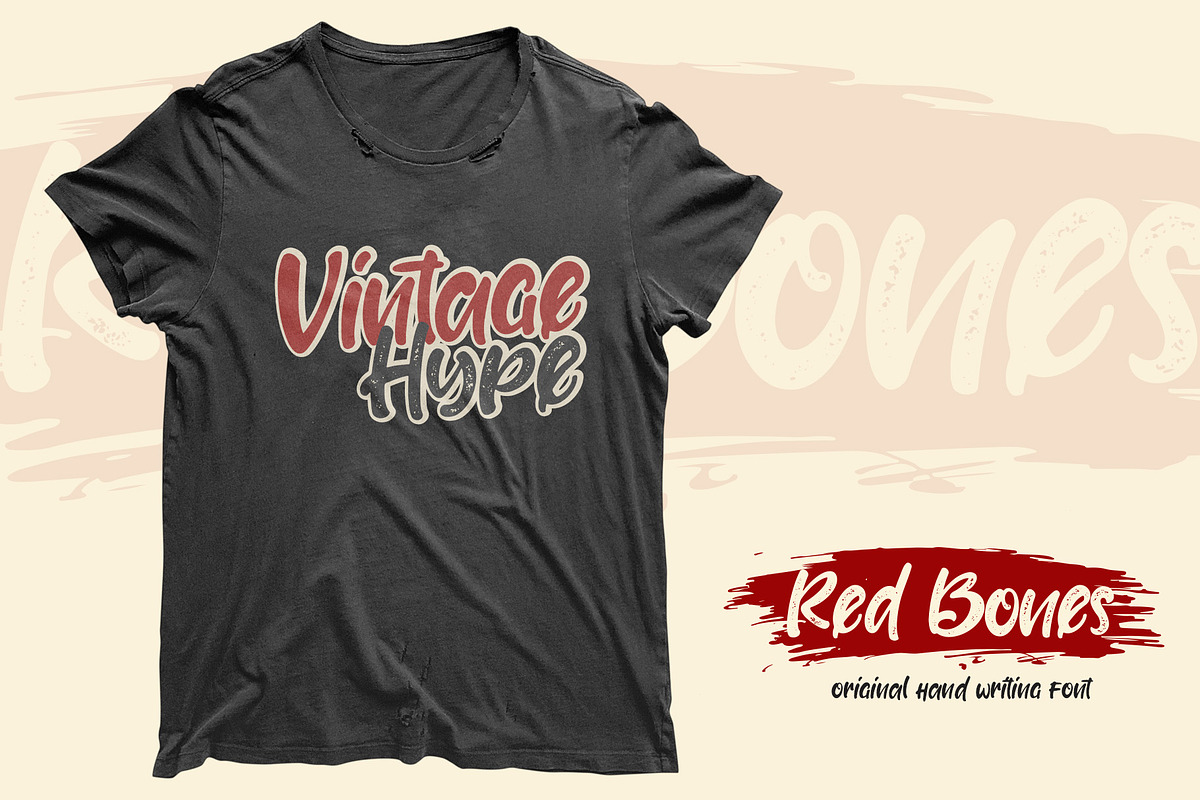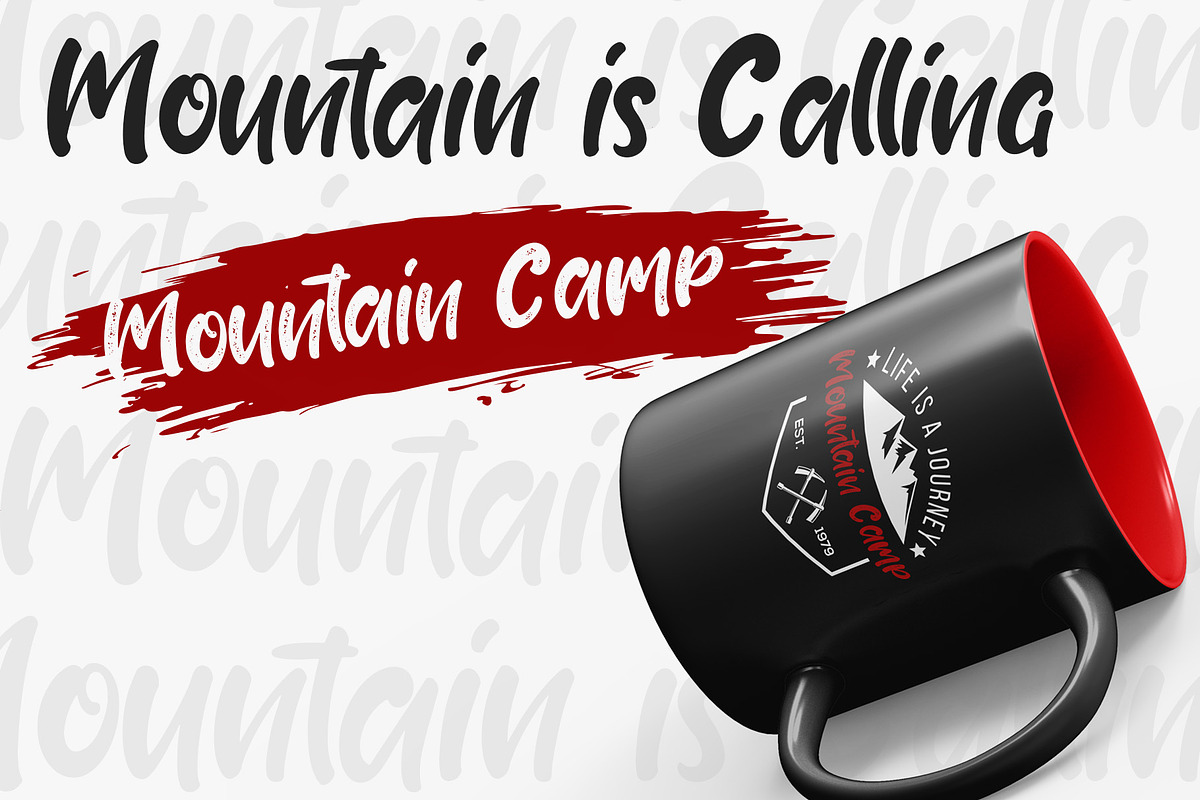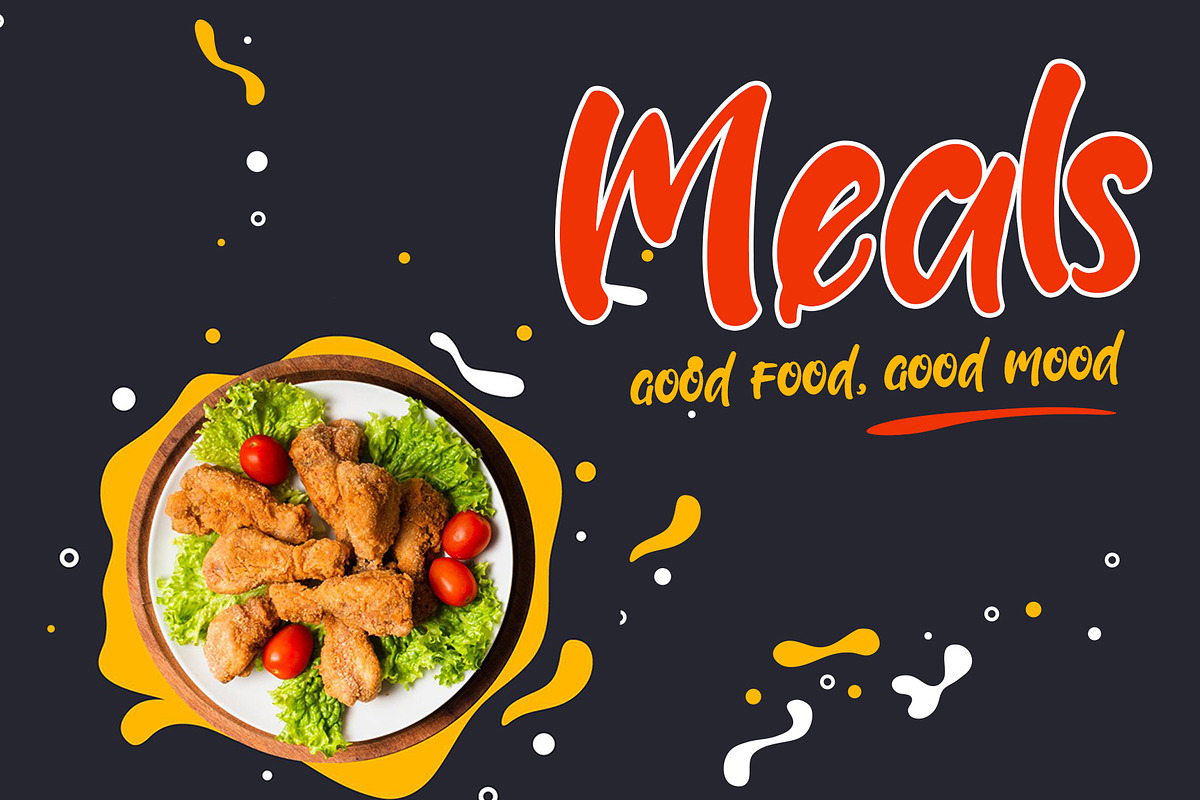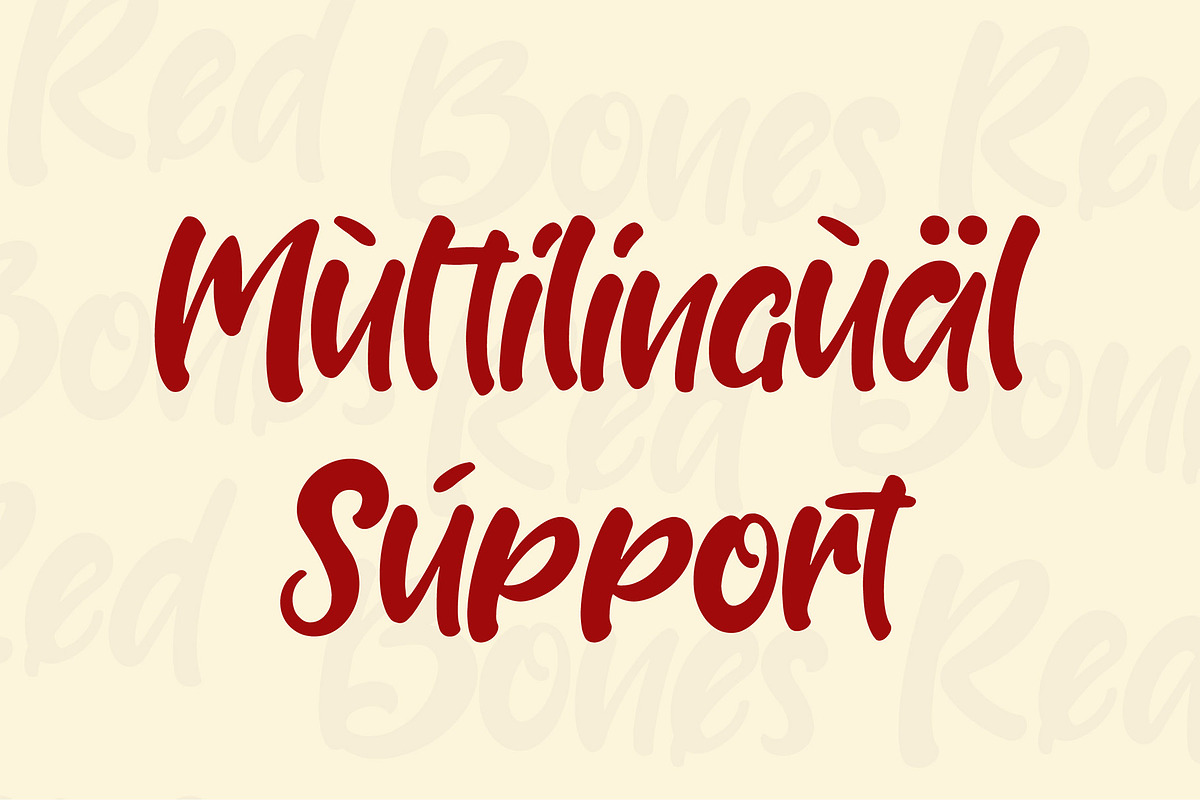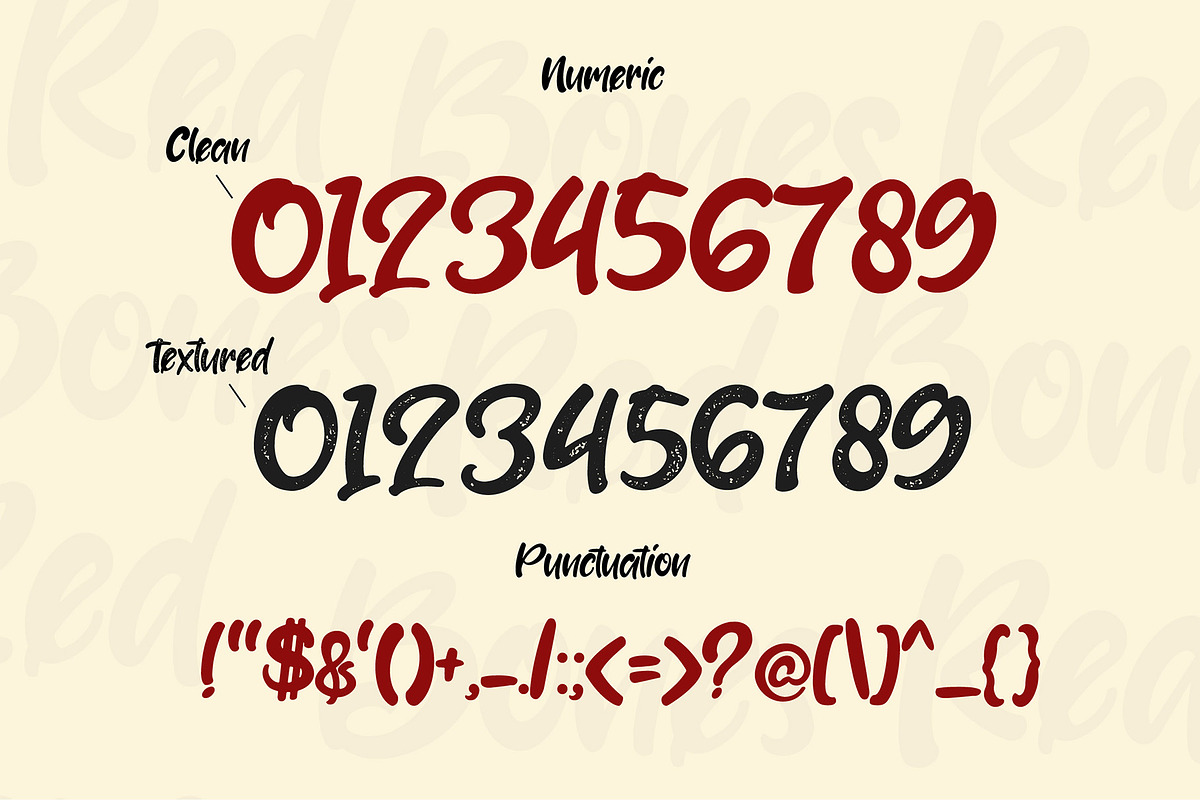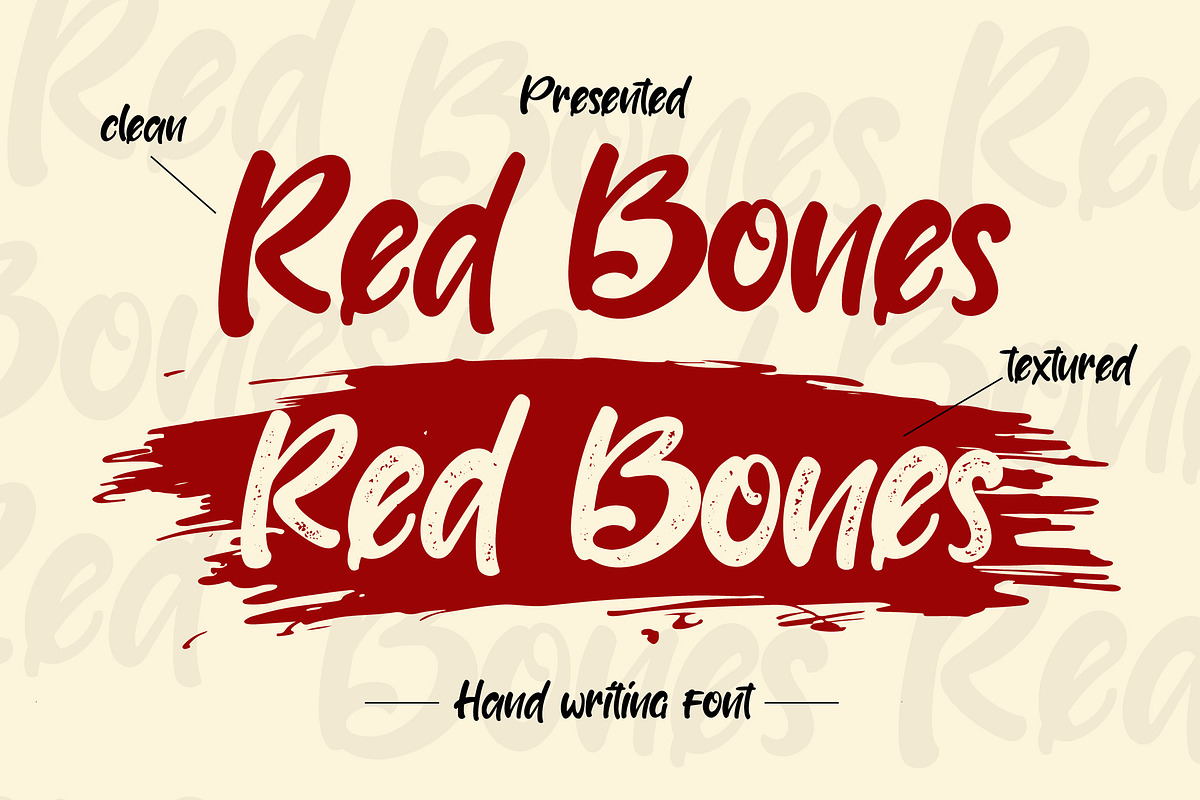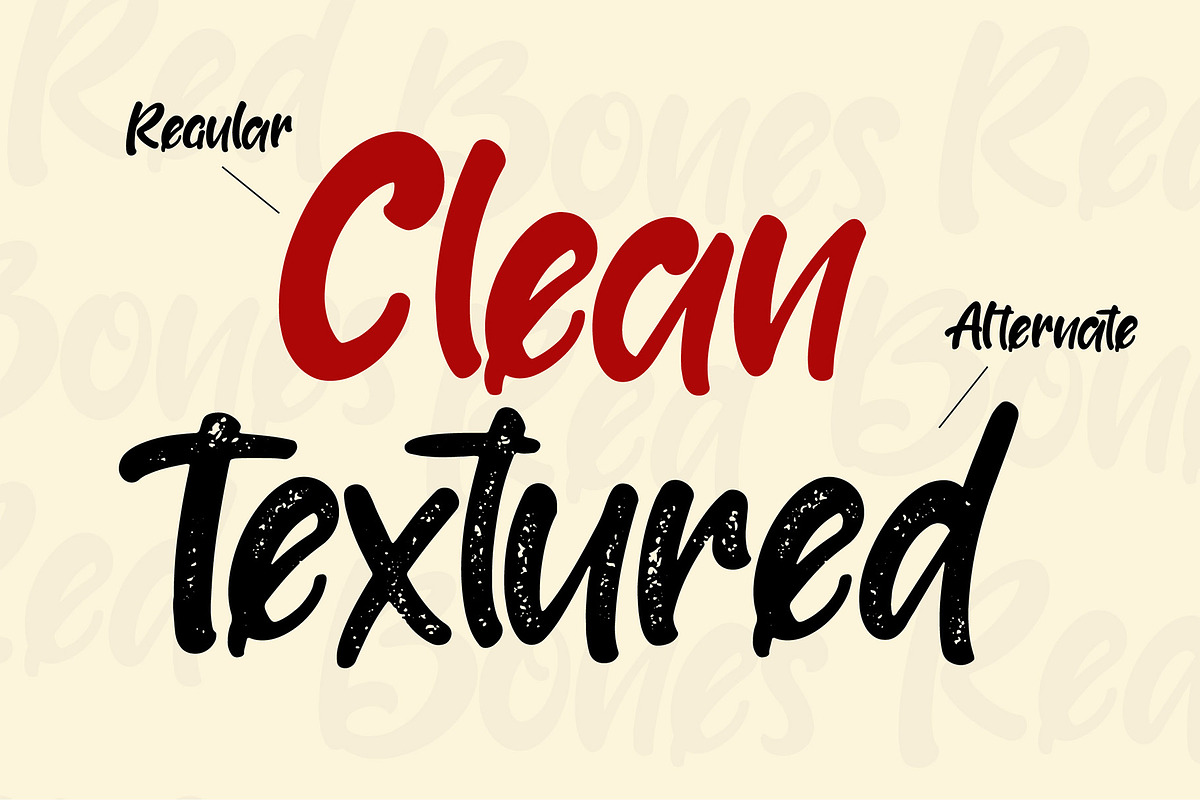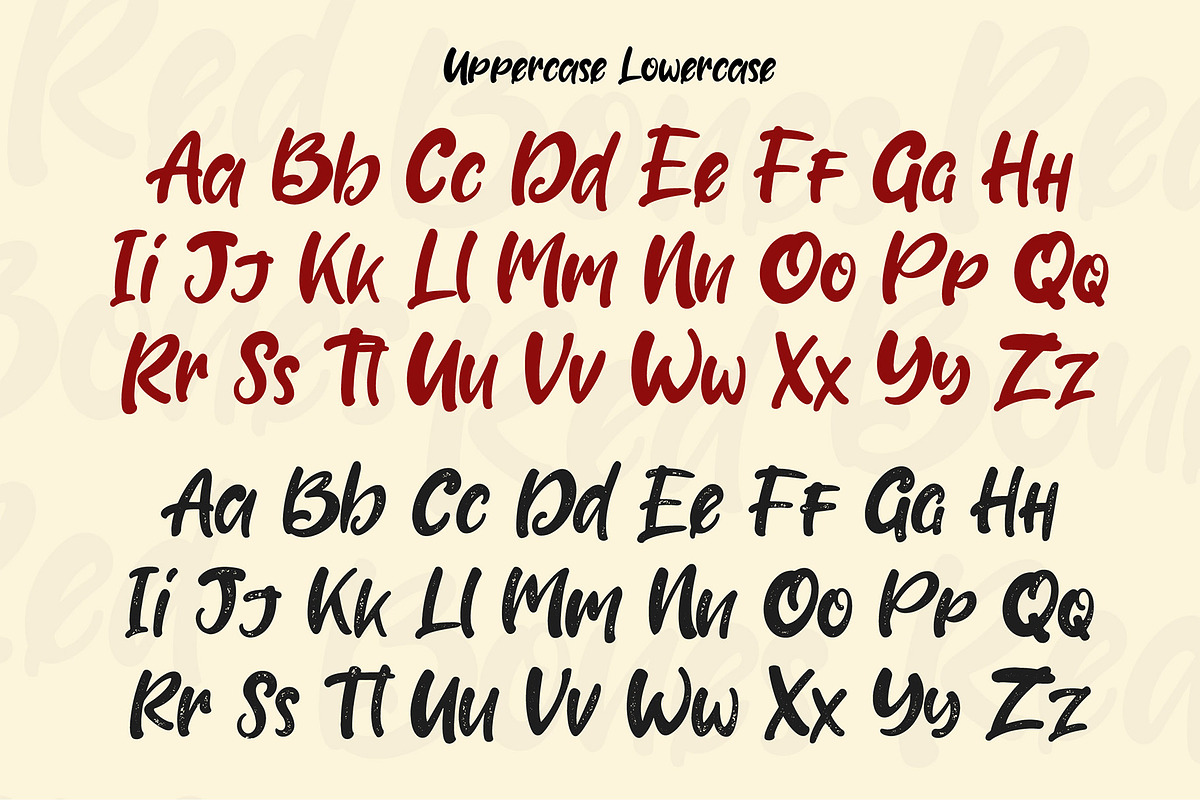
Red Bones
Red Bones Font
This pair was inspired by the retro poster design that i saw on some coffee shop, It was crafted by hand specially to add natural handmade feeling in its brand identity than i make it clean with pentool.
Opentype features Red Bones font has 209 character set included Red Bones Font is very good looking in logo, labels, t-shirt prints, product packaging, invitations, advertising and others.